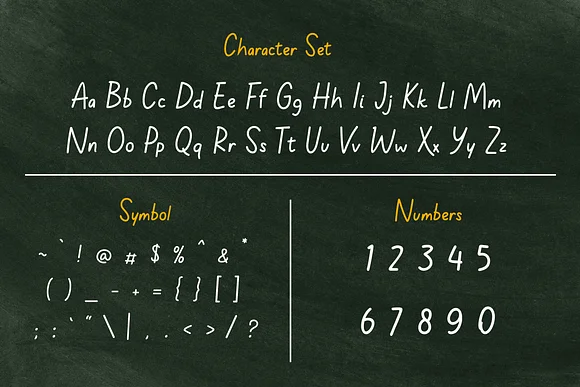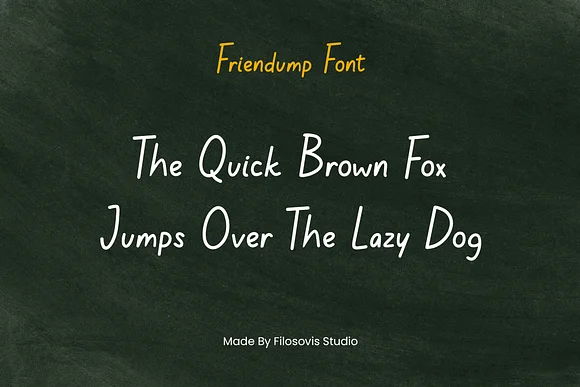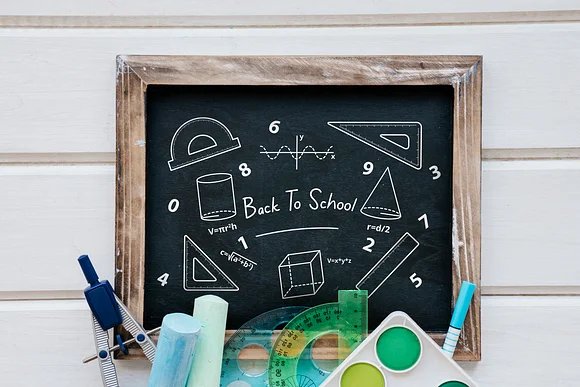
Friendump | Handwritten Font
Friendump is a handwritten font that adds a playful twist to any design. With its whimsical letterforms and unique charm, it's perfect for eye-catching headlines, vibrant posters, and playful branding projects. Infuse your creations with joy and personality with Friendump! What's included? Uppercase Characters Lowercase Characters Number & Symbol File formats: TTF, OTF, WOFF, WOFF2 Font Preview (JPEG)